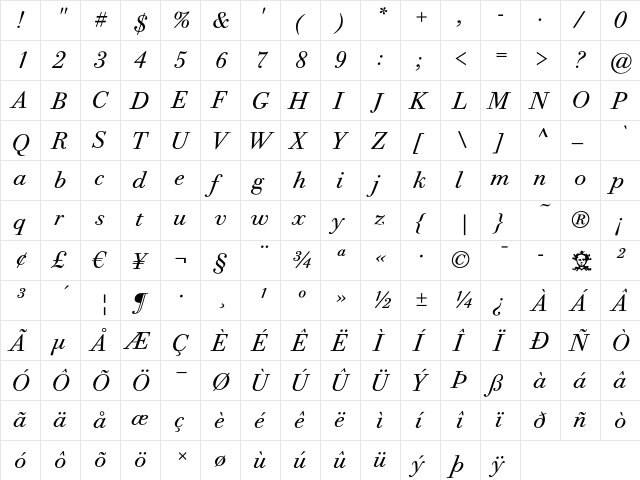
Bodoni Twelve ITC Book Italic Font Preview
Bodoni Twelve ITC Book Italic
Design Context for Bodoni Twelve ITC Typeface
Bodoni Twelve ITC takes a measured approach to typography — its balanced proportions and neutral character make it a reliable workhorse for both digital and print work. Its italic angle brings a sense of urgency and motion to the letterforms.
Pro Tip: Try Bodoni Twelve ITC for annotation and caption copy alongside an upright companion — the contrast in angle creates a dynamic but ordered typographic system.